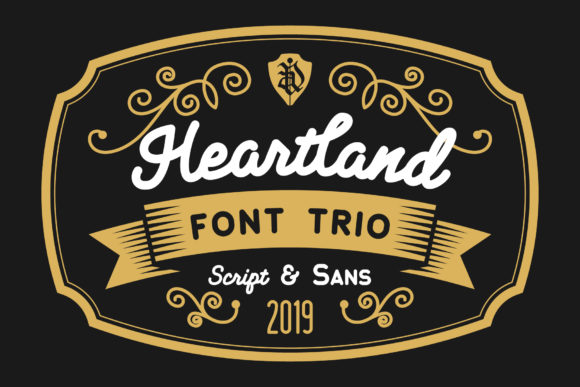
Heartland Trio Font
Behold, the Heartland Trio Font, a captivating symphony of script and sans-serif styles that will transport your designs to a bygone era of charm and elegance. Inspired by the nostalgic allure of retro aesthetics, this font trio effortlessly blends the boldness of handwritten calligraphy with the sophistication of rounded sans serif characters.
Immerse yourself in the splendor of the Heartland Script, a font that dances across the page with the grace of a seasoned penman. Its sweeping strokes and playful flourishes evoke the charm of vintage love letters and handwritten invitations, while its unwavering legibility ensures that your message remains crystal clear.
Complementing the script's captivating allure are the Heartland Sans and Heartland Sans Italic fonts, a harmonious duo that exudes warmth and approachability. Their rounded edges and generous proportions create a sense of comfort and invitation, making them ideal for both body text and eye-catching headlines.
Together, the Heartland Trio Font forms a versatile and cohesive font family that will elevate your designs to new heights. Whether you're crafting logos, branding materials, website designs, or social media graphics, this font trio will infuse your projects with a touch of nostalgia and sophistication.